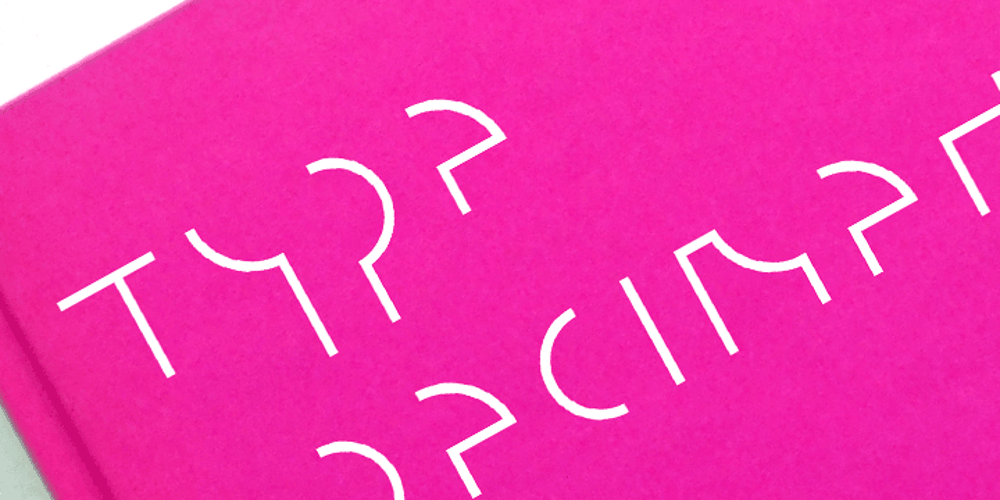
Komunikat FA Font Family was designed by Artur Frankowski and published by Fontarte. Komunikat FA contains 1 styles and family package options. FA Komunikat is an experimental and geometrical typeface based on simple elements: a circle, it’s parts and straight lines. The typeface communicate the spirit of future, dynamism and modernity. FA Komunikat design was based on the sketch of unique lettering from 1932 made by Władysław Strzemiński, Polish vanguard abstract painter, an artist and a typographer. Strzemiński claimed that modern economic letter forms should be standardized and based on lines and arches. He wrote that readability is a matter of habit and after a practice the new letter forms would be very well readable for everyone. In 2004 Artur Frankowski revived original design creating set of characters, widen up with numerals, punctuation marks and diactrics.